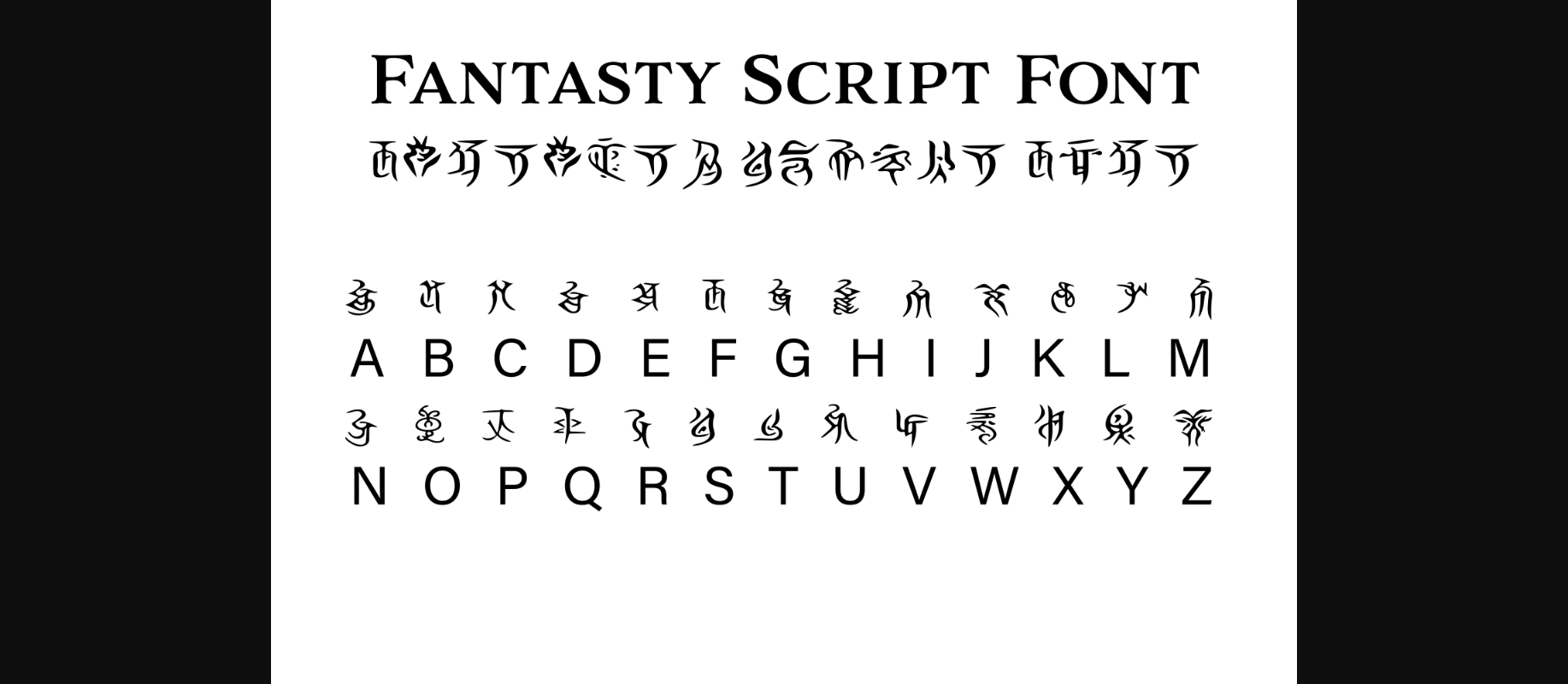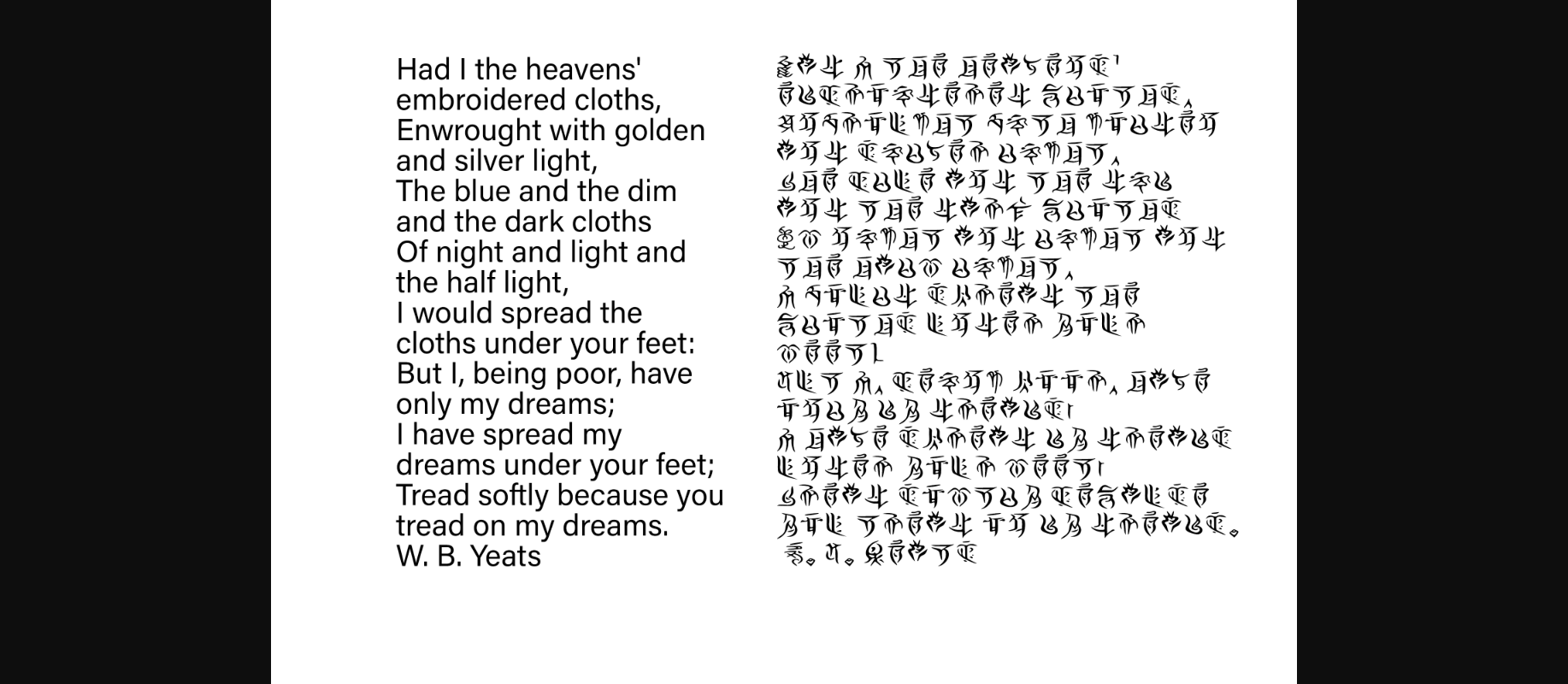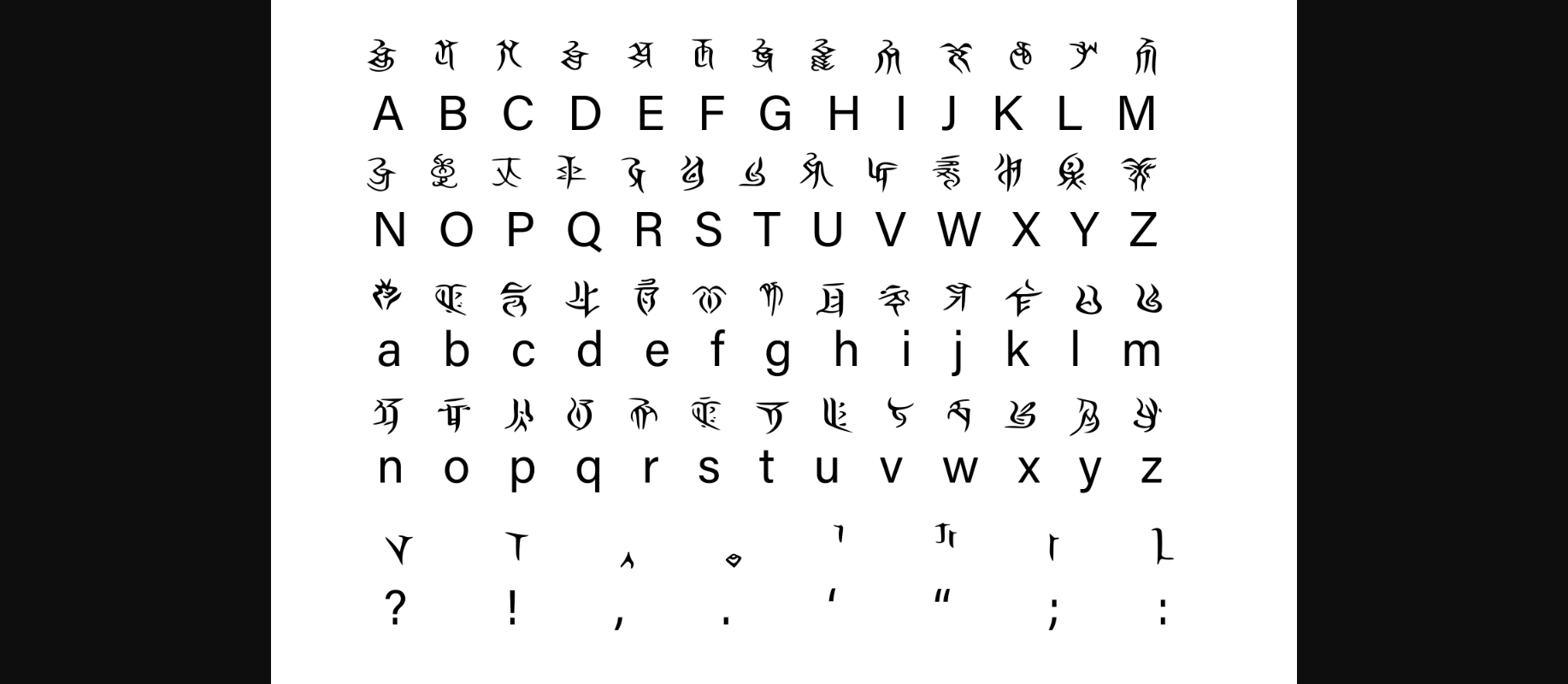
HomeDecorative FontsFantasy Script 9 Font Decorative Fonts Fantasy Script 9 Font FacebookXPinterestWhatsApp 1 of 5 ... Fantasy Script 9 Font Poster 2... Fantasy Script 9 Font Poster 3... Fantasy Script 9 Font Poster 4... Fantasy Script 9 Font Poster 5... About Fantasy Script 9 Font Fantasy is perfect for your next Dungeons and Dragons campaign, fantasy LARP adventure, novel, or whatever else you’re working on! This font includes the standard English alphabet and basic punctuation. DOWNLOAD NOW People also explored Flashing Font Amelya Putry Font Ruthyne Font Denira Signature Font Sweet Alice Font Mathics Round Font Qualiga Font Rachel Font Slince Font 357 0 TagsFantasy Script 9 Font Previous articleFantasy Script 4 FontNext articleFantasy Script 8 Font LEAVE A REPLY Cancel reply Comment: Please enter your comment! Name:* Please enter your name here Email:* You have entered an incorrect email address! Please enter your email address here Website: Save my name, email, and website in this browser for the next time I comment. Personal Use Free Arc Personal Use Free Read more about this font Squariess Personal Use Free Read more about this font Cinderella Personal Use Free Read more about this font Tahu Font Personal Use Free Read more about this font BLOG 5 Fonts That Will Dominate Design Trends in 2026 5 Fonts for 2026 That Will Dominate Design Trends Typography plays a critical role in visual communication, and as we look ahead to 2026, it’s... Modern Sans-Serif Fonts That Brands Love in 2025 Top 7 Google Fonts Alternatives for Faster and Privacy-Friendly Web Design (2025) To increase your work productivity, choose the most readable fonts.